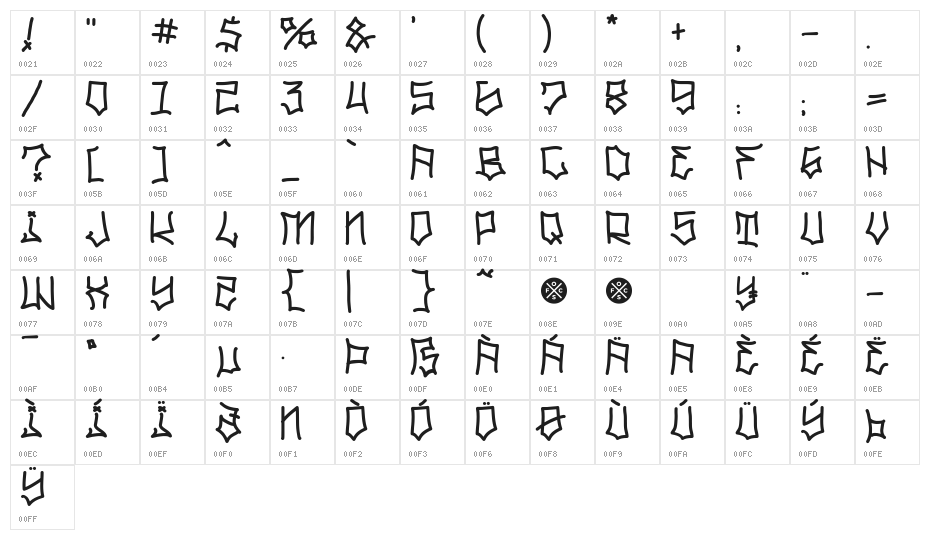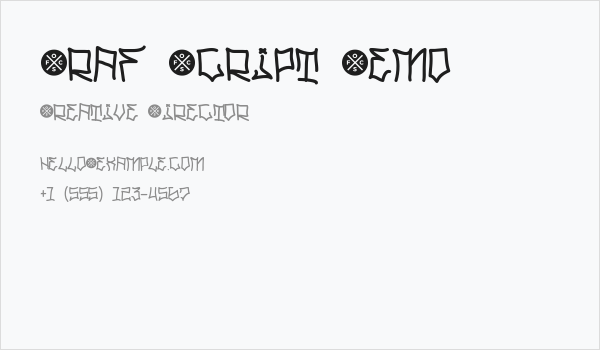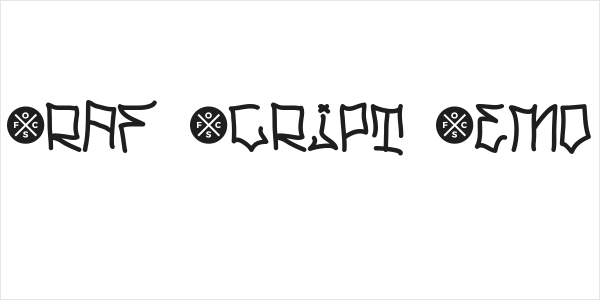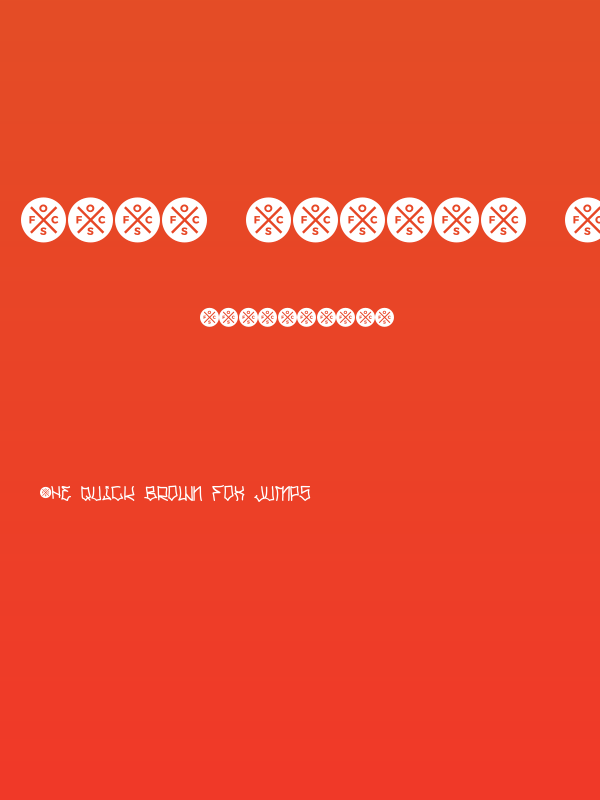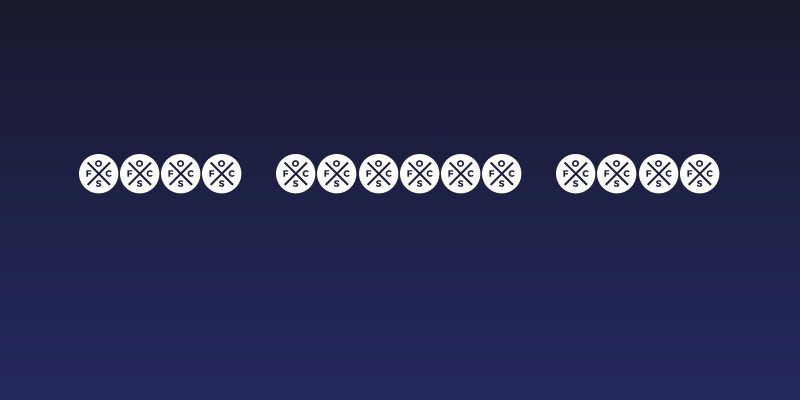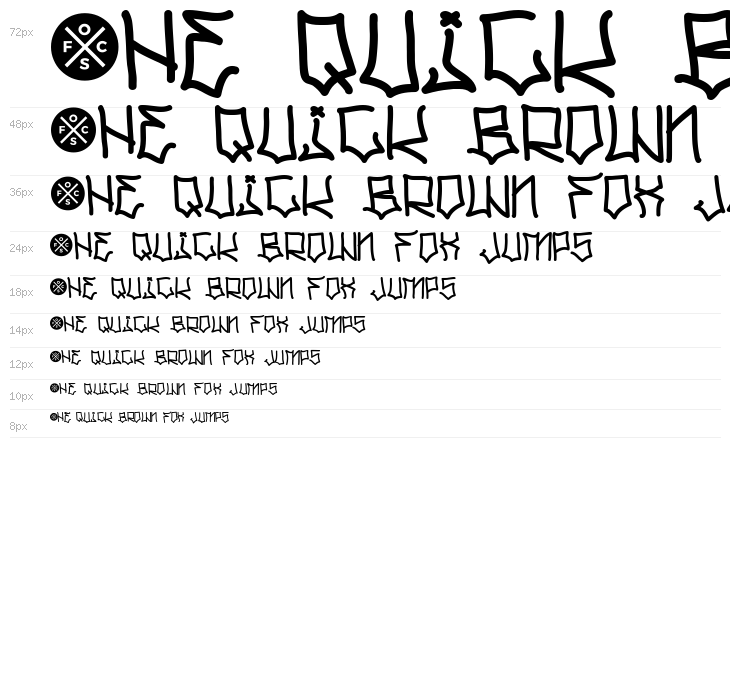
Graf Script Demo Font
Graf Script Demo Description
This font features a unique and edgy style, characterized by its graffiti-inspired script. The letters are bold and angular, with sharp edges and a hand-drawn appearance. The uppercase letters have a distinctive, rebellious flair, while the lowercase letters maintain a consistent style that complements the uppercase. Numbers and special characters follow the same aesthetic, making the font cohesive and versatile. The overall look is dynamic and energetic, perfect for projects that require a bold statement.
| Overall Style | Modern, Urban |
| Proposed Projects | Ideal for street art designs, urban-themed posters, edgy branding, and music album covers. |